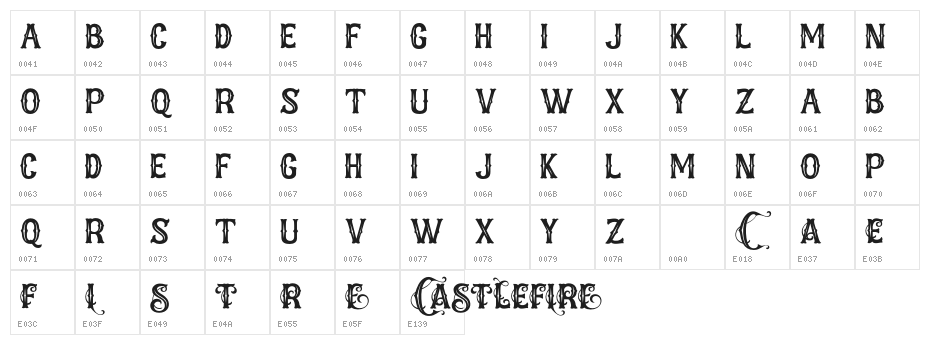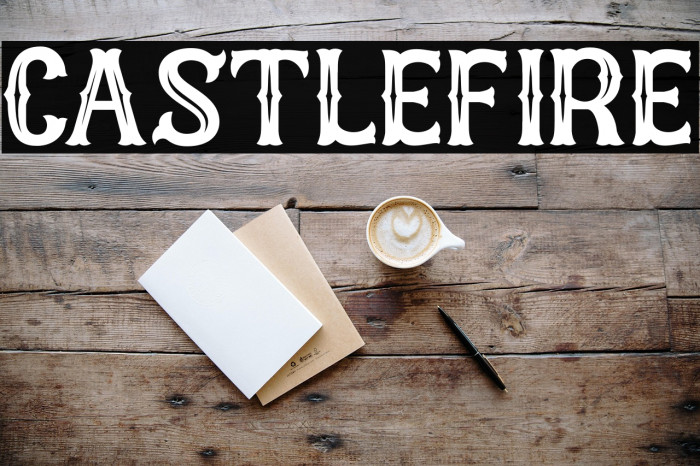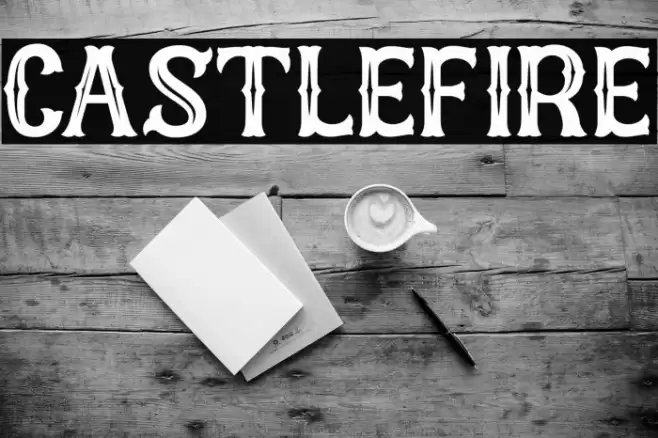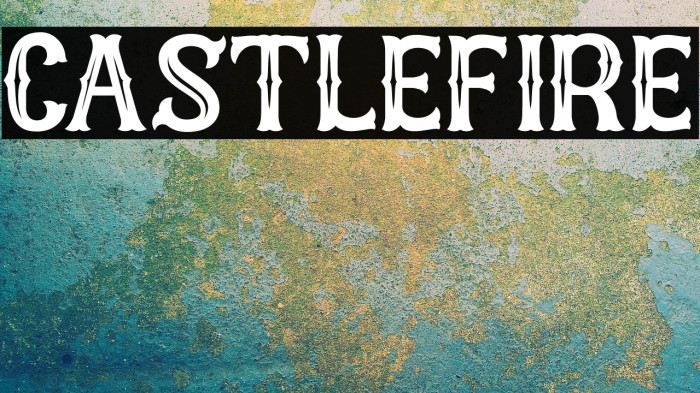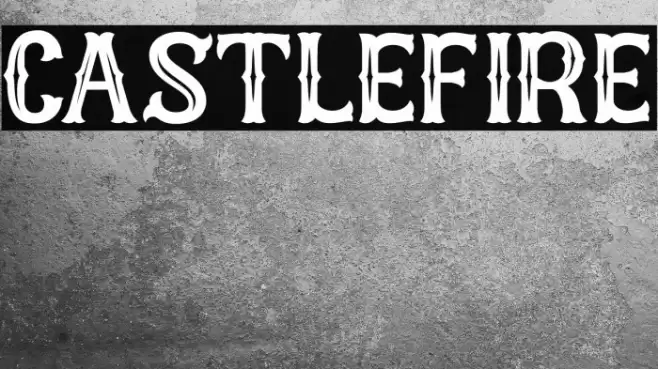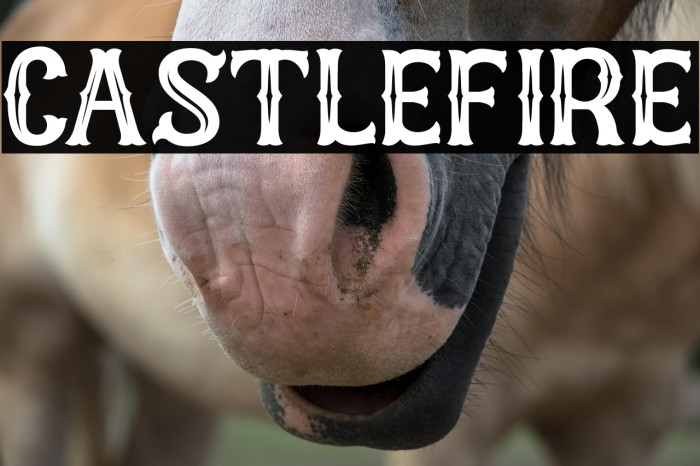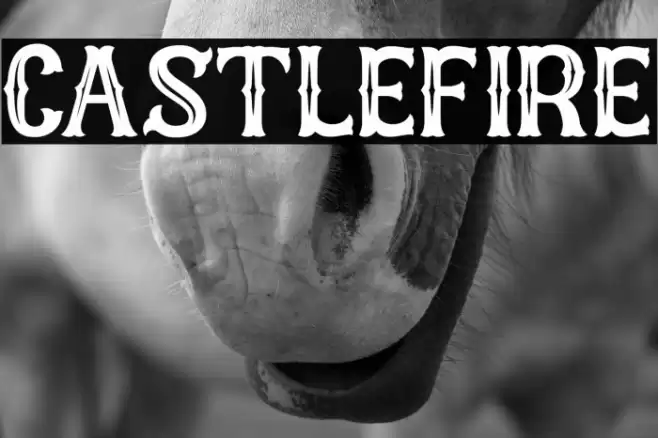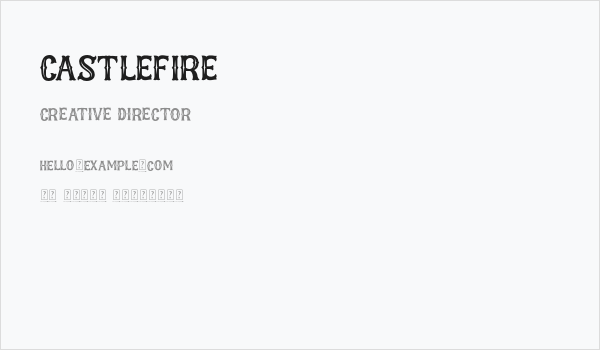
Castlefire Font
Castlefire Description
This font features a bold and dramatic style with sharp, pointed edges and a slightly distressed appearance. The characters are designed with a gothic influence, showcasing intricate details that give them a unique and eye-catching look. The uppercase letters are particularly striking, with elongated serifs and a sense of movement that adds to the font's dynamic nature. The overall design is reminiscent of medieval or fantasy themes, making it suitable for projects that require a touch of mystery or historical flair.
| Overall Style | Gothic, Fantasy |
| Proposed Projects | Ideal for fantasy book covers, movie posters, themed event invitations, and video game titles. |